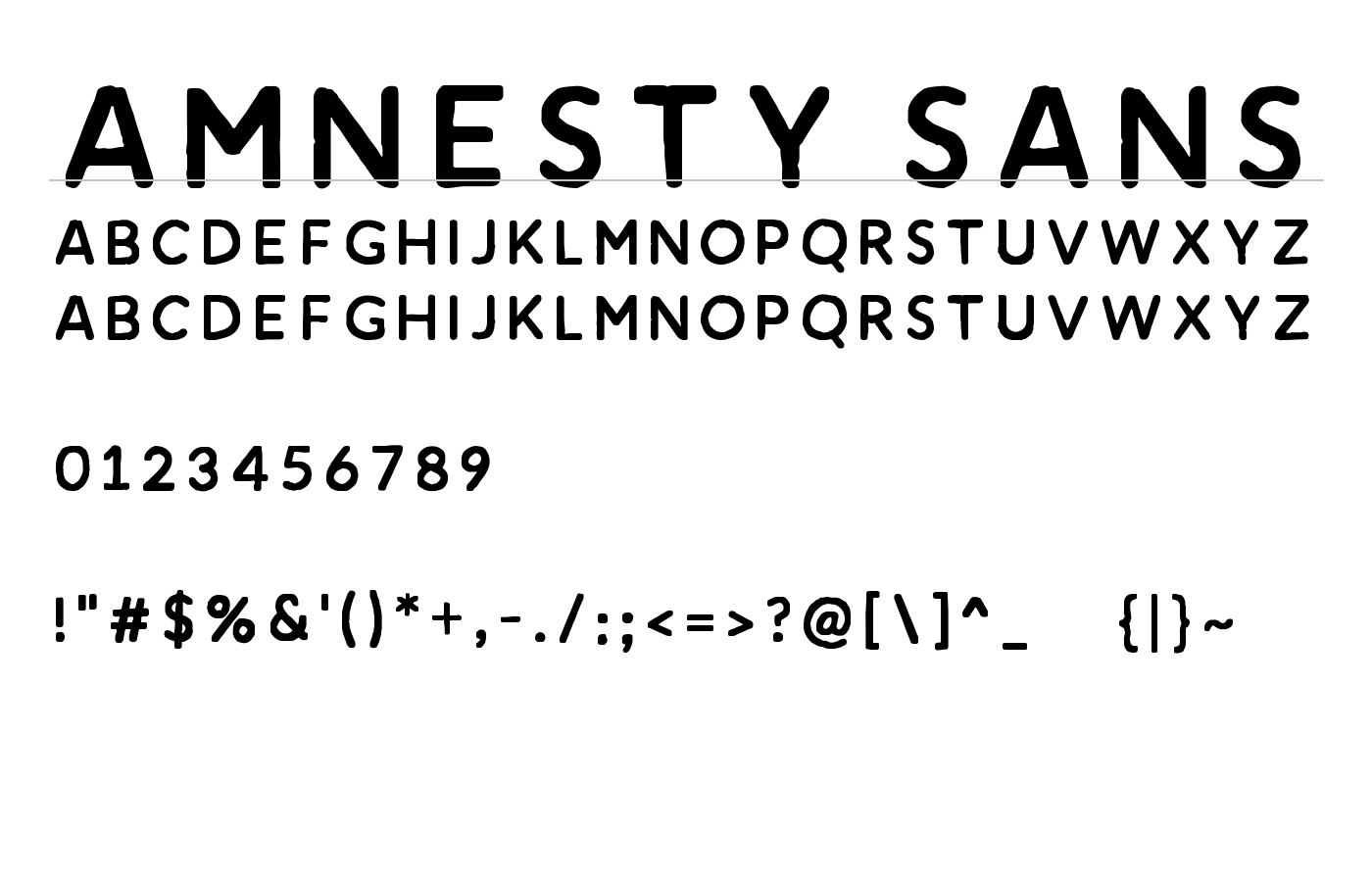
Amnesty Sans is a playful and friendly sans serif font with a hand-drawn, slightly irregular style that adds warmth and personality. Its rounded edges and irregular stroke widths give it an approachable, informal feel, making it ideal for creative projects, casual branding, and designs that aim to communicate friendliness and originality. This font works well in headlines, logos, and packaging where a human touch is desired.
Amnesty Font
About Amnesty Font